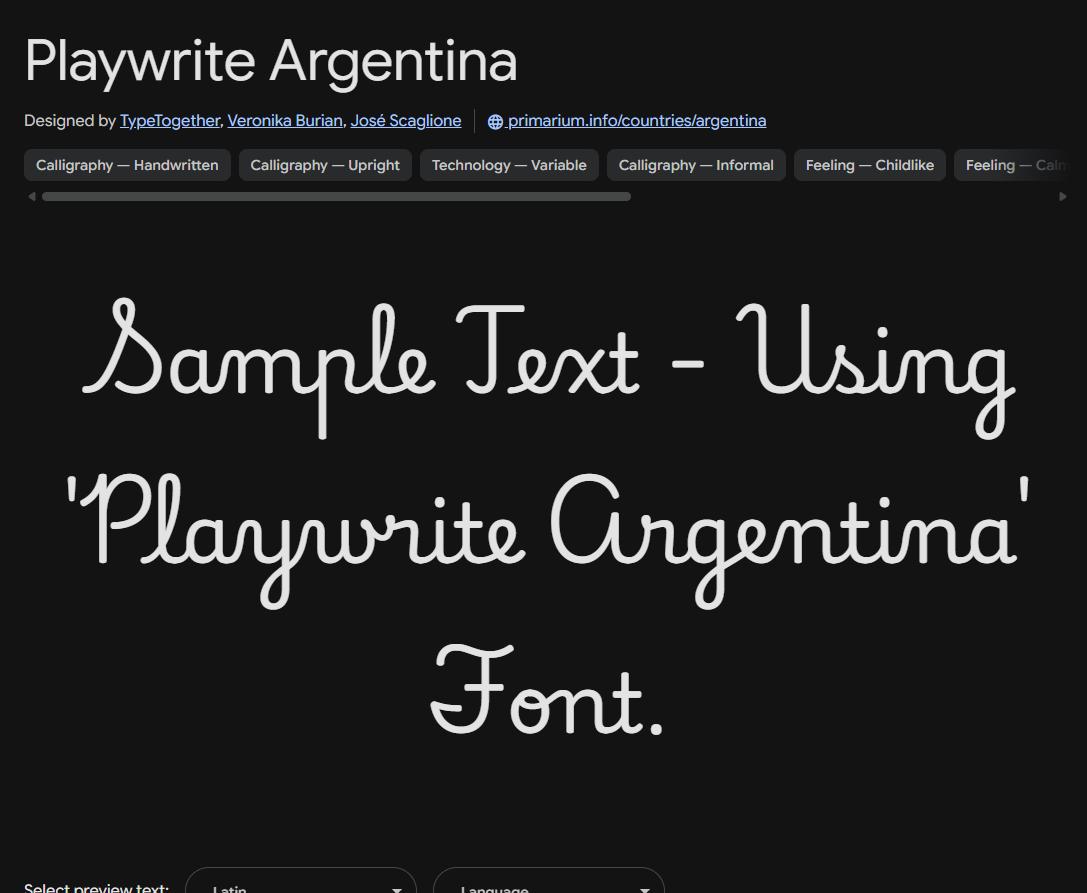
Playwrite Argentina, a meticulously crafted typeface by Veronika Burian and José Scaglione of TypeTogether, redefines the intersection of pedagogical tradition and modern variable technology through its single-axis architecture that governs stroke weight interpolation. By digitizing the specific regional ductus of Argentine cursive, this variable font leverages its weight axis to maintain structural integrity and joinery logic across a fluid design space, ensuring that the rhythmic cadence of traditional school scripts remains legible in high-density digital environments. Through advanced OpenType programming and a focus on localized calligraphic DNA, the family provides a semantically rich typographic toolset that bridges the gap between tactile handwriting instruction and the technical demands of responsive, cross-platform UI design.
The Playwrite Argentina font family represents a masterclass in modern variable technology, functioning as an upright and informal calligraphy system that synthesizes regional educational standards with high-fidelity digital craftsmanship. This handwritten specimen offers a distinctive typographic voice that oscillates between a calm, vintage sophistication and a loud, rugged aesthetic, utilizing its variable axes to provide a tactile, organic weight. By grounding its childlike and playful essence in a semantically optimized structure, the typeface evokes a happy, expressive atmosphere while maintaining the informative clarity of a standardized script. Through its unique blend of informal calligraphy and technical precision, Playwrite Argentina serves as a versatile tool for creators seeking to balance nostalgic, handwritten warmth with the robust performance requirements of contemporary digital interfaces.
Playwrite Argentina, a variable script typeface meticulously engineered by TypeTogether to encapsulate the specific pedagogical handwriting models of Argentinian primary schools, is fundamentally unsuitable for high-density information environments such as financial auditing reports, pharmaceutical labeling, or aviation instrumentation where rapid-fire legibility is a safety requirement. Because its glyph construction prioritizes the fluid joins and idiosyncratic slant of a cursive educational model, the typeface lacks the distinct terminal clarity and rigid stroke-to-counter ratio necessary for high-stakes technical documentation or low-resolution digital interfaces. The inherent kerning logic and continuous-stroke nature of this school-hand model introduce significant cognitive friction in rapid data parsing, making it an ineffective choice for UI/UX systems requiring ISO-compliant readability or any industrial context where the expressive, rhythmic nature of a variable script would interfere with the instantaneous decoding of alphanumeric strings in micro-typography.
Playwrite Argentina is specifically designed to mirror the cursive handwriting taught in Argentine schools, making it an ideal choice for primary educational resources. Its glyph structure adheres to local pedagogical standards, ensuring that letterform connections align with specific motor skill development benchmarks in early childhood education.
To balance its fluid cursive strokes, this font pairs most effectively with clean, geometric sans-serifs or sturdy slab-serifs. Utilizing a high x-height sans-serif like Montserrat provides a functional contrast that maintains legibility across diverse typographic hierarchies.
While primarily a script for educational use, Playwrite Argentina can offer a personalized, artisanal feel to boutique branding projects. Designers must evaluate the vector path complexity, as the intricate cursive ligatures require careful kerning adjustments to maintain visual weight at various scales.
The font's thin strokes and continuous cursive connections can lead to clarity issues when rendered at sizes below 12 points. Decreased optical sizing and ink traps in the script's design may result in letterform blurring on low-DPI screens due to the high frequency of delicate hairlines.
Using this cursive script for extended passages is generally discouraged because it significantly increases the cognitive load for the reader. Eye-tracking studies suggest that continuous script fonts reduce reading velocity compared to standardized grotesque typefaces, making them unsuitable for dense information blocks.
In high-resolution print environments, Playwrite Argentina displays exceptional detail in its cursive loops and stroke transitions. The font's high-fidelity vector outlines ensure that fine-line weights remain crisp when output at 1200 DPI or higher on coated paper stocks.
This font is better suited for decorative UI elements rather than functional navigation components or interactive buttons. Implementing this script as a primary system font would likely cause accessibility failures under WCAG contrast and readability guidelines for mobile viewport rendering.
Yes, Playwrite Argentina is built to support a wide range of Latin characters essential for Spanish and other regional languages. The typeface includes full Unicode support for diacritics and specific glyph variants required by the Argentine Ministry of Education's typographic specifications.
It serves as a powerful tool for marketing campaigns that wish to evoke a sense of heritage, education, or personal touch. Leveraging its OpenType features allows for contextual alternates that simulate the natural variation of human handwriting, enhancing the authenticity of the brand's visual identity.
Playwrite Argentina excels in decorative heading roles where visual impact and stylistic elegance are the primary objectives. The font's fluid ascenders and descenders create a rhythmic verticality that optimizes white space utilization in large-scale typographic layouts.